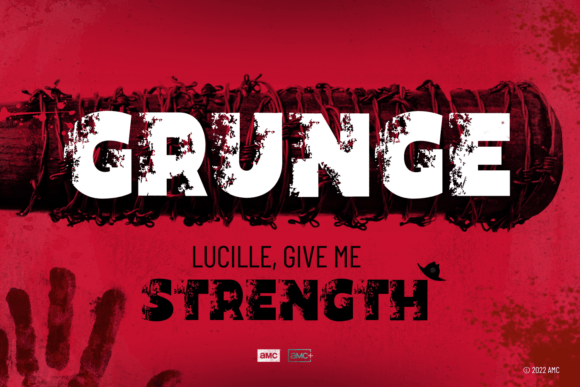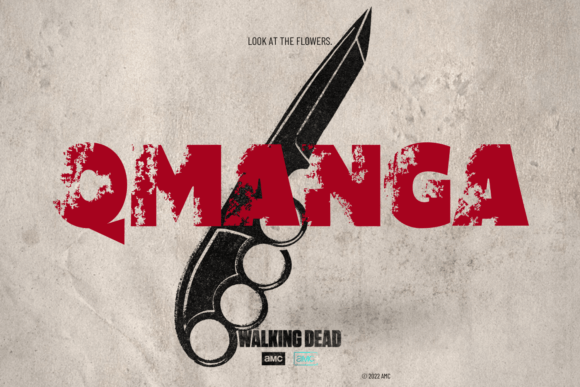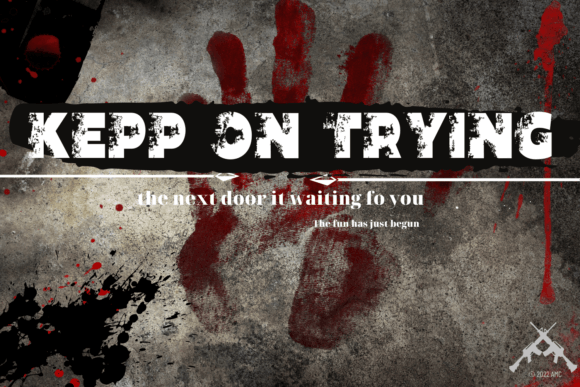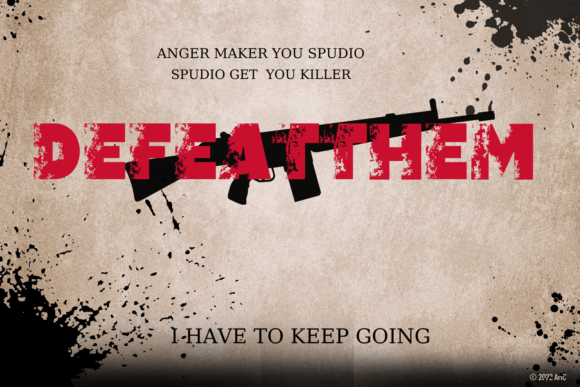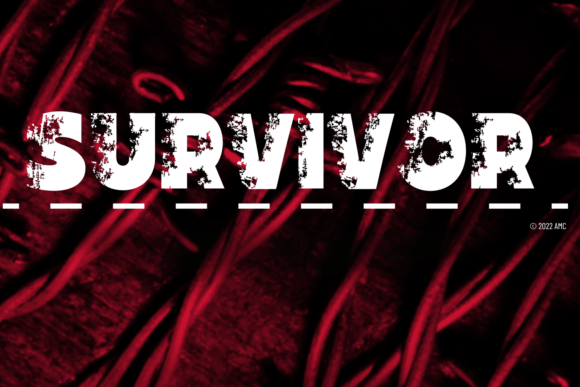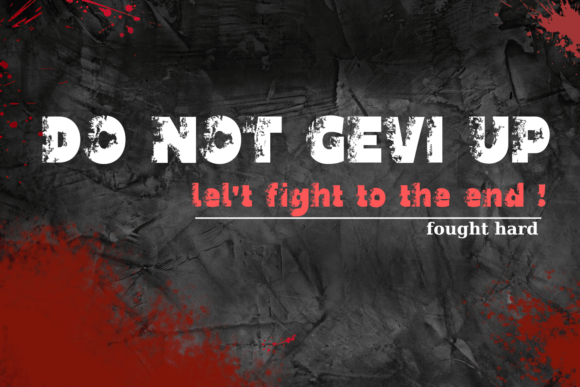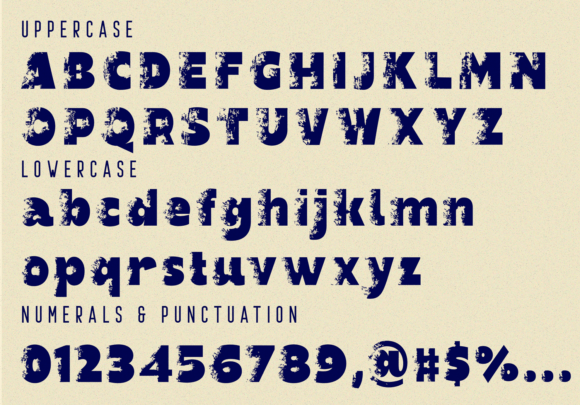
The Birth of a Trendy Typography
Remember that moment when you stumbled upon the perfect font to match your band’s underground vibe? The one that screamed ‘we’re different’ and ‘we’re here to stay’? For designers and creatives, finding the right font can be a game-changer, and that’s exactly what the Grunge Font is all about.
As a modern and unique textured display font, the Grunge Font is designed to stand out in a crowd. Its trendy and rough appearance makes it perfect for a wide range of applications, from music albums to fashion branding. With its one-of-a-kind letter combinations, the Grunge Font is the ultimate tool for achieving a cool and original look.
Grunge Font Key Features
- Font Family: Grunge Font is a distressed font, often used to give a vintage or worn look to text.
- Unique Characteristics: The font features a distressed, rough texture, with irregularities and imperfections that give it a unique, hand-drawn look.
- Style Options: Grunge Font often comes in various styles, including regular, bold, italic, and bold-italic, allowing for greater flexibility in design.
Grunge Font Review
Overall, I’d say the Grunge Font is a decent option for designers looking for a distressed, vintage vibe. ✨ The font’s bold, irregular strokes give it a gritty, authentic feel that can work well for music-inspired projects, fashion designs, or even retro-themed websites.
- ✨ The font’s distressed texture adds a nice layer of depth to designs.
- ✨ It’s easy to read, even in larger sizes, making it suitable for headlines and titles.
- ✨ The font comes in a range of weights and styles, allowing designers to mix and match to achieve the desired look.
- ⚠️ The font’s irregularities can sometimes make it difficult to use in situations where precise alignment is required.
- ⚠️ Some characters may not be as well-designed as others, leading to inconsistencies in the font’s overall appearance.
- ⚠️ The font may not be suitable for projects that require a high level of professionalism or sophistication.
Overall, the Grunge Font is a fun, creative option for designers who want to add a touch of edginess to their projects. While it may not be perfect, it can be a great choice for the right design challenge.
The Grunge font is ideal for creating a distressed, vintage look for:
- Music festival or concert posters.
- Rock or punk band merchandise.
- Distressed or vintage-style logos.
Experiment with layer blending modes, opacity, and texture to achieve the perfect grunge effect.
Alternatives to Grunge Font
Pacifico is a beautiful, cursive font that can be used to add a touch of elegance and sophistication to your designs. It is ideal for use in headings, titles, and other text elements where a smooth, flowing look is desired.
Comparison to Grunge Font: Pacifico is a complete opposite of Grunge Font, which is known for its rough and distressed look. Pacifico is a clean and modern font that can be used to create a more polished and refined design.
Great Vibes is a fun and playful font that can be used to add a touch of whimsy and personality to your designs. It is ideal for use in headings, titles, and other text elements where a lively and energetic look is desired.
Comparison to Grunge Font: Great Vibes is a more lighthearted and carefree font compared to Grunge Font, which is often associated with a darker and more edgy aesthetic.
Alex Brush is a elegant and sophisticated font that can be used to add a touch of luxury and refinement to your designs. It is ideal for use in headings, titles, and other text elements where a smooth and flowing look is desired.